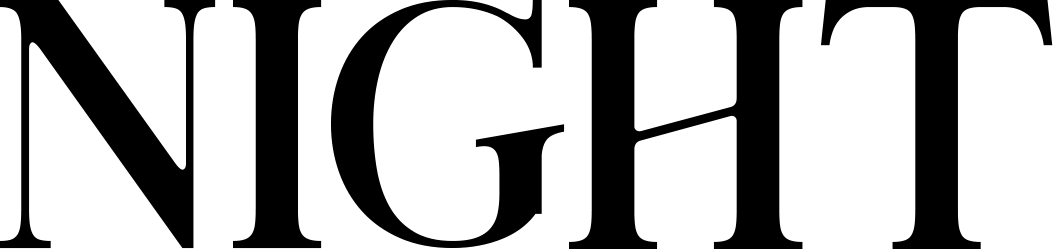
Night Font
Night font is one of the stylish fonts in the category of serif fonts. This modern font is presented in two types, and one of its disadvantages is that does not have small letters, which among its applications in billboard design, large posters will not be considered as defects.
In addition, this banner font is the best choice for designing themes and brands, movies, and even invitation cards.
Introducing new my font in new years is called “Jolly Night Font Duo”. This is beautiful font duo elegant stylish, contemporary pair of script and serif fonts.
This font is very good with additional alternatives like multilingual support and italic style for Night font to complement your needs.
With ccombination Jolly font make this font so perfect for your project.